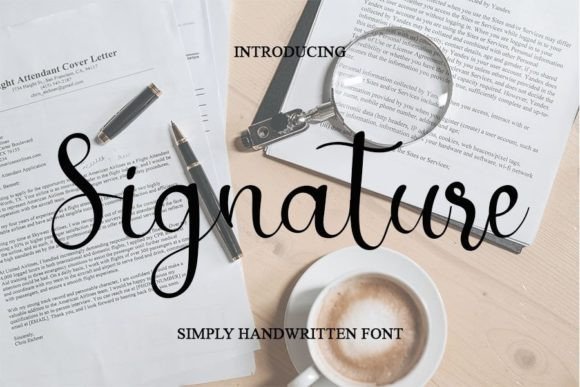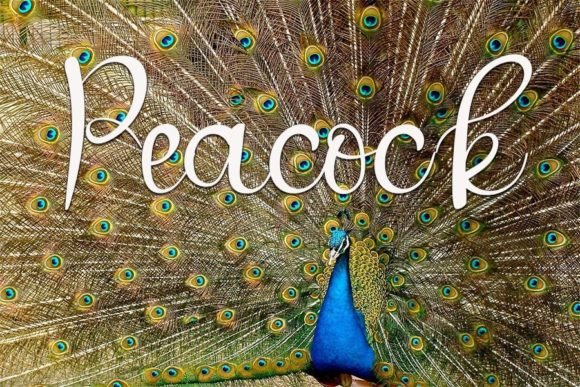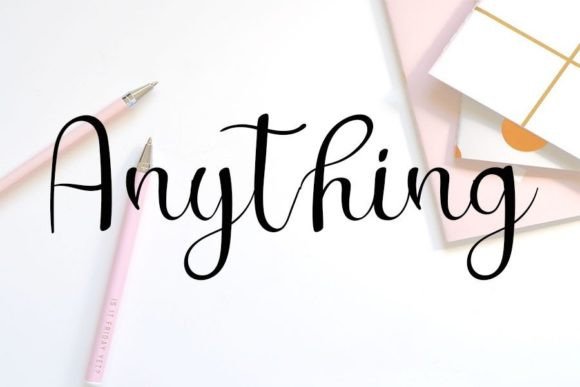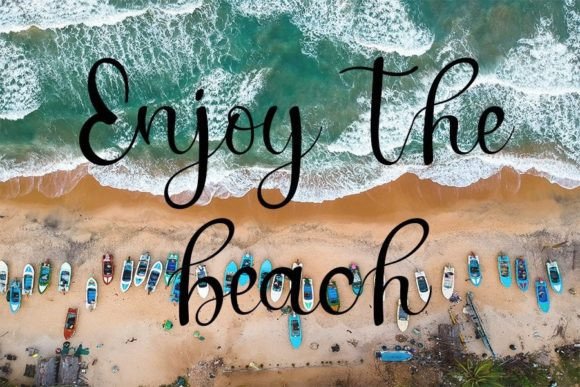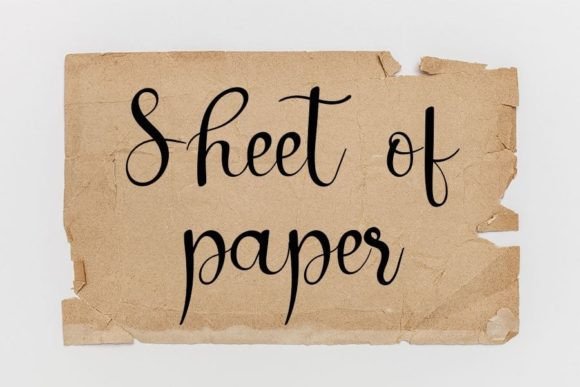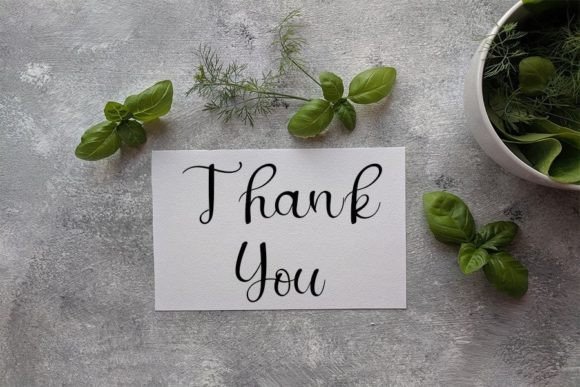
“Signature” is a font that exudes elegance and charm with its slim and delicate handwritten style. This font carries an air of daintiness and joyfulness, making it the perfect choice for a variety of design purposes. Its refined and graceful strokes lend a romantic and personalized touch to any project, especially those requiring a sense of intimacy and sophistication.
Ideal for creating wedding invitations, “Signature” adds a special flair to this significant event, setting the tone for a romantic celebration of love. The font’s slender and flowing characters beautifully complement the sentiment of a wedding, enhancing the overall aesthetic and creating a memorable impression on the recipients. Each letter, crafted with precision, captures the essence of romance and creates a sense of anticipation, making it the ideal choice for expressing the love between two individuals.
Moreover, “Signature” is versatile enough to be used for various occasions beyond weddings. It is a wonderful choice for designing greeting cards, whether for birthdays, anniversaries, or other special moments. The font’s delicacy and charm elevate the heartfelt messages within the cards, making them even more meaningful and touching to the recipients. The handwritten quality of “Signature” imparts a sense of warmth and authenticity, making the reader feel truly cherished and valued.
Additionally, this font is perfect for any design that requires a personalized touch. Whether you are creating custom stationery, crafting a logo for a boutique business, or designing promotional materials for a high-end event, “Signature” adds a touch of sophistication and individuality. Its slender and carefully crafted characters give the impression of a handwritten signature, making your designs feel exclusive and bespoke.
In the realm of digital communication, “Signature” brings a human touch to the screen. It can be used effectively in email signatures, blog headers, or social media graphics, infusing your online presence with a sense of personality and charm. In a world where digital interactions dominate, “Signature” bridges the gap between the virtual and the personal, leaving a lasting impression on those who encounter it.
In summary, “Signature” is more than just a font; it is a tool that enables you to convey emotions, celebrate moments, and create lasting memories. Its slim and delicate handwritten style, coupled with its romantic and joyful essence, makes it an ideal choice for a wide range of design projects. So, whether you are planning a wedding, sending a heartfelt message, or promoting a special event, let “Signature” be your go-to font, adding a touch of elegance and intimacy to your creations.